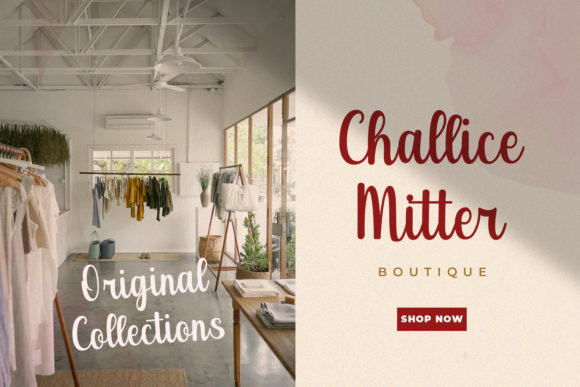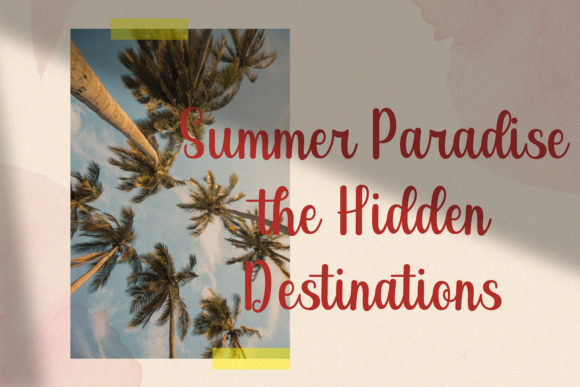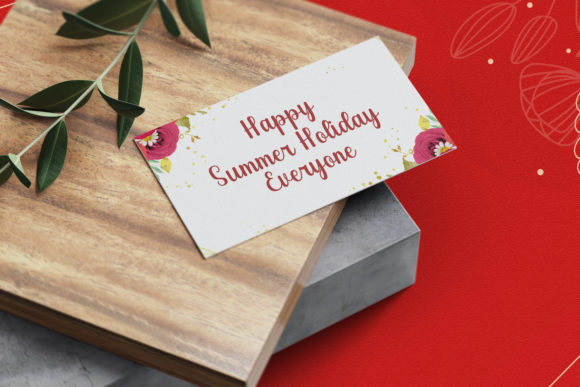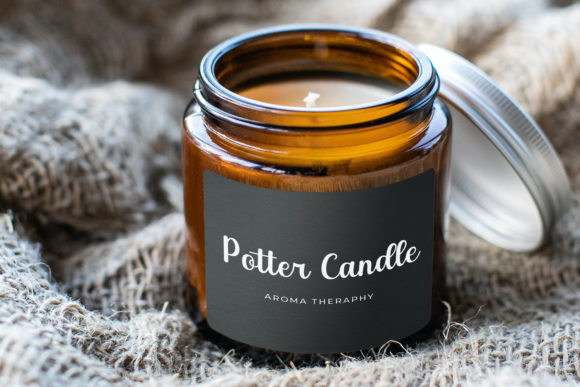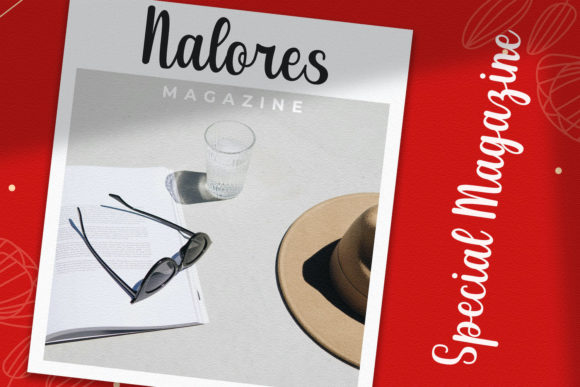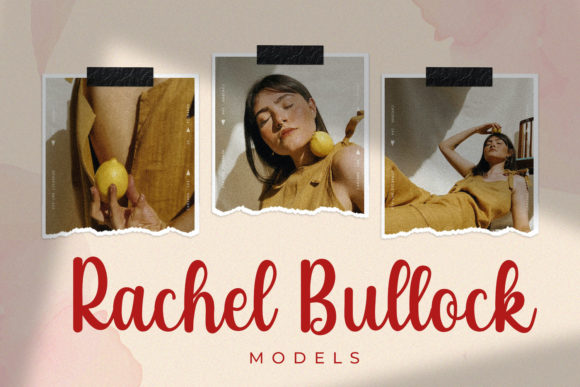
Introduction to James Ariyale Font
Have you ever been working on a creative project, pouring your heart and soul into it, only to feel like something is missing? That’s when you stumble upon the perfect design resource – a font that brings your ideas to life. For many designers, this moment of discovery is a game-changer. And for those who have experienced it, they can attest to the power of the right font. In this article, we’ll explore the beauty and versatility of the James Ariyale Font.
This elegant, handwritten font is a true gem for designers. With its delicate lines and well-balanced characters, it’s the perfect addition to any creative project. Whether you’re working on a design with a transparent background or a high-quality print piece, James Ariyale Font is sure to elevate your work to the next level.
Key Features of James Ariyale Font
- High-Quality Design: James Ariyale Font is a premium design resource, offering a sophisticated and elegant aesthetic perfect for creative projects.
- Transparent Background: This font features a transparent background, allowing for seamless integration with any design element and providing a clean, modern look.
- High Resolution: With a high resolution of 300 DPI, James Ariyale Font is ideal for printing and digital applications, guaranteeing crisp and clear text.
- Unique Characteristics: The font’s unique blend of modern and vintage elements makes it a standout design resource, perfect for adding a touch of sophistication to any creative project.
- Large Character Set: James Ariyale Font includes a comprehensive character set, including uppercase and lowercase letters, numbers, and punctuation marks, making it a versatile design resource.
Honest Review: James Ariyale Font
I recently had the chance to work with the James Ariyale Font, and I must say it’s been a game-changer for my creative projects. This font is a true gem, offering a unique and elegant touch to any design. ✨
One of the standout features of the James Ariyale Font is its versatility. It’s perfect for both digital and print designs, and its transparent background makes it easy to work with. The font is also available for free download, which is a huge plus for designers on a budget.
Here are some of the key features that make the James Ariyale Font a valuable design resource:
- Transparent background for easy editing
- Perfect for digital and print designs
While the James Ariyale Font is an excellent choice for most designers, there are a few limitations to consider:
- May not be suitable for very large-scale designs
- Some users may find the font’s style too ornate
Overall, I’m thoroughly impressed with the James Ariyale Font. It’s a high-quality design resource that’s perfect for designers of all levels. If you’re looking for a new font to add to your arsenal, I highly recommend giving it a try.
How to Use James Ariyale Font
The James Ariyale Font is a high-quality, versatile design resource ideal for creative projects. This free download offers a transparent background, making it perfect for designers who want to add a touch of elegance to their work.
Tips for Getting the Most Out of James Ariyale Font
Experiment with different font sizes, colors, and styles to create a unique look. Use the James Ariyale Font in combination with other design elements to add depth and interest to your project.